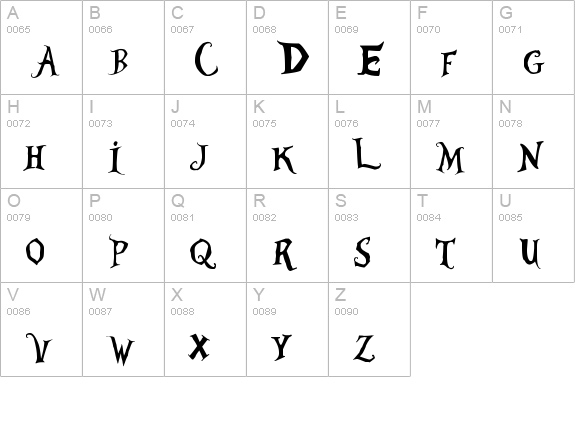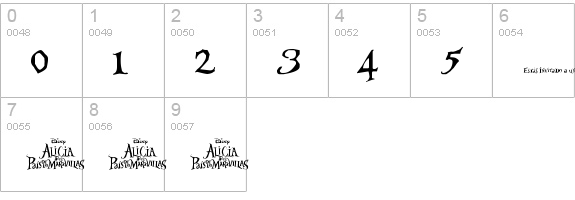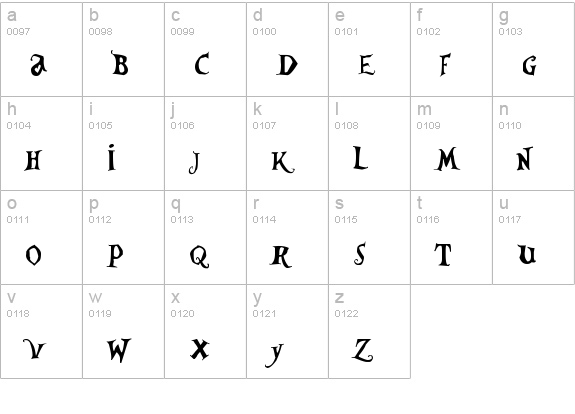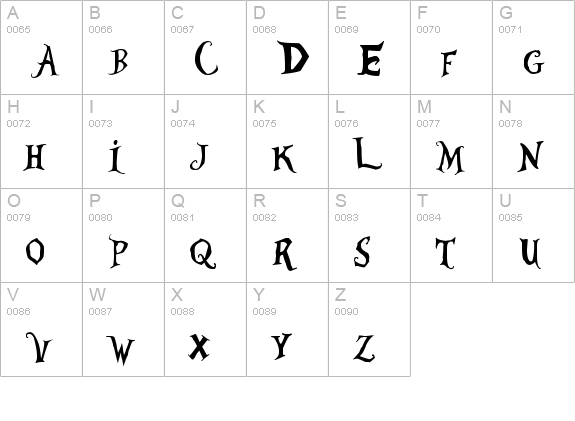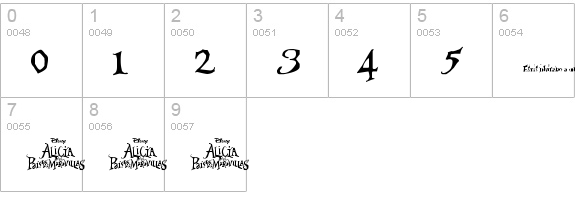
Introducing AliciaWonderland, a whimsical and enchanting font that will transport you to a magical world of imagination. With its delicate and graceful letterforms, AliciaWonderland captures the essence of a fairytale, perfect for adding a touch of fantasy to your designs. This font effortlessly combines elegance with playfulness, making it suitable for a wide range of creative projects. Whether you're designing invitations for a whimsical wedding, creating a captivating logo for a children's book, or crafting beautiful typography for a dreamy website, AliciaWonderland will bring your ideas to life with its unique charm. Best of all, AliciaWonderland is free! That's right, this extraordinary font is freely available to download at FontsMarket.com. We believe that creativity should have no boundaries, and that's why we're thrilled to offer AliciaWonderland as a complimentary addition to your font collection. With its extensive character set, AliciaWonderland provides endless opportunities for personalization and customization. From its captivating uppercase letters to its whimsical lowercase variants, every character has been meticulously crafted to ensure a seamless and delightful reading experience. But AliciaWonderland doesn't stop there. This font also comes with a variety of enchanting swashes, decorative elements, and ligatures that add an extra touch of magic to your designs. Whether you're embellishing a headline or accentuating a special word, these artistic flourishes will truly make your text sparkle. So why wait? Immerse yourself in the wonderland of AliciaWonderland font and let your imagination run wild. Download this extraordinary typeface for free at FontsMarket.com and embark on a creative journey that will captivate hearts and minds.